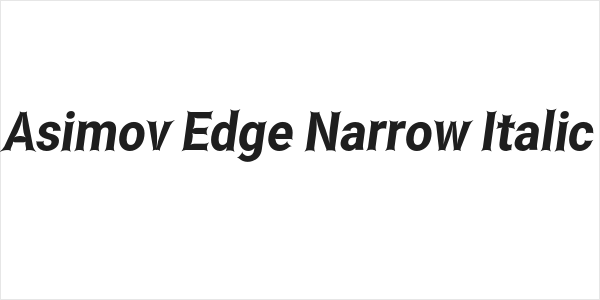
Asimov Edge Narrow Italic Font
Asimov Edge Narrow Italic Description
This font exhibits a dynamic and futuristic style with its sharp, angular edges and italicized form. The letters are narrow, giving it a sleek and modern appearance. The strokes are bold, providing a strong visual impact, while the italic slant adds a sense of motion and energy. The characters are tightly spaced, enhancing the compact and efficient look. This font is well-suited for projects that require a contemporary and edgy aesthetic, such as technology branding, sci-fi themed designs, or modern advertising campaigns. Its distinctive style makes it ideal for headlines and logos where a bold statement is needed.
| Proposed Projects | Technology branding, sci-fi designs, modern advertising, headlines, and logos. |